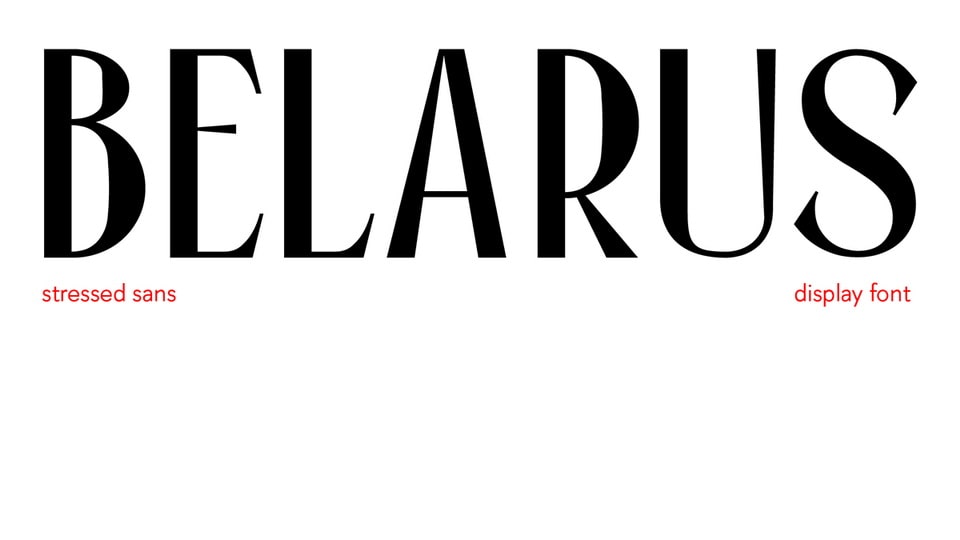
Download Belarus font, an exquisite high-contrast condensed sans-serif typeface, inspired by printing work of Salomon Telingater. Belarus font is crafted with sharp, vertical stress lines and delicate details, creating a sense of timeless elegance and luxury.